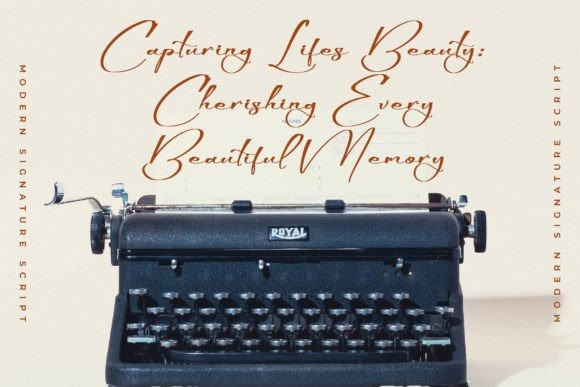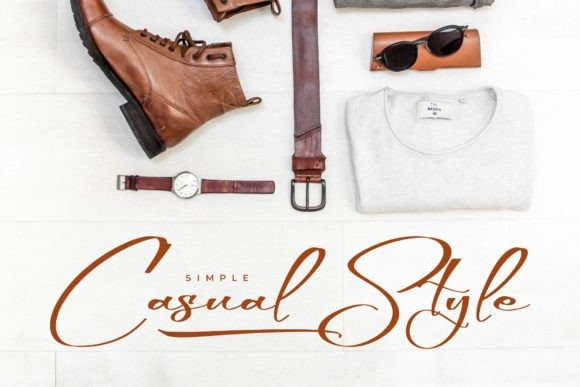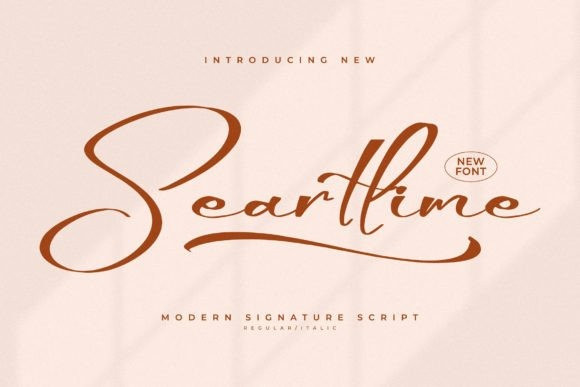
Seartlime Script Font
Seartlime Script Font, is a modern signature script font from Glorytype Studio, suitable for any project such as logos, branding projects, homeware designs, product packaging, mugs, quotes, posters, shopping bags, t-shirts, book covers, name card, invitation cards, greeting cards, label, photography, watermark, special events, and all your other lovely projects that need a beautiful script taste.